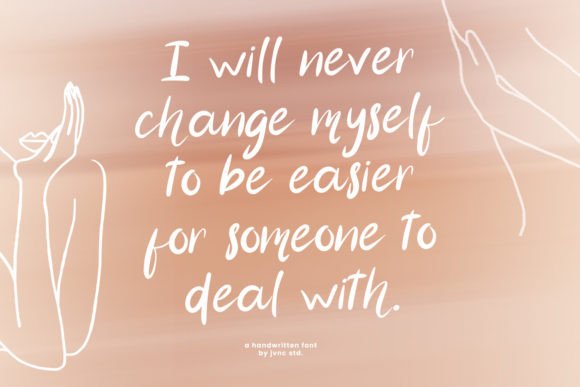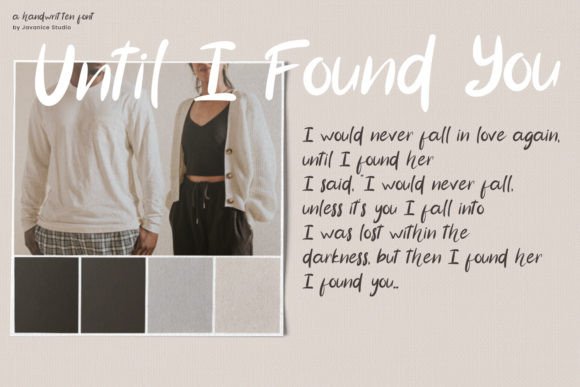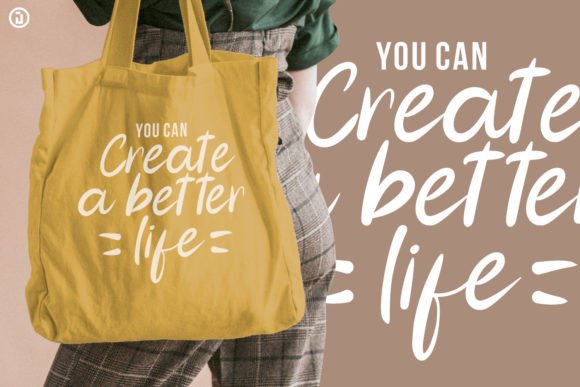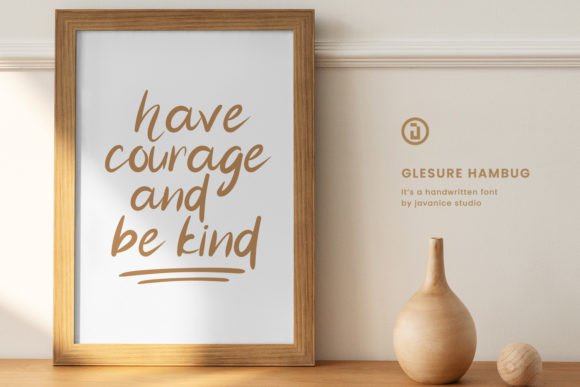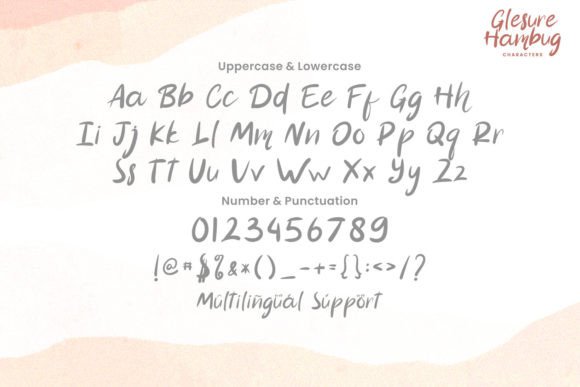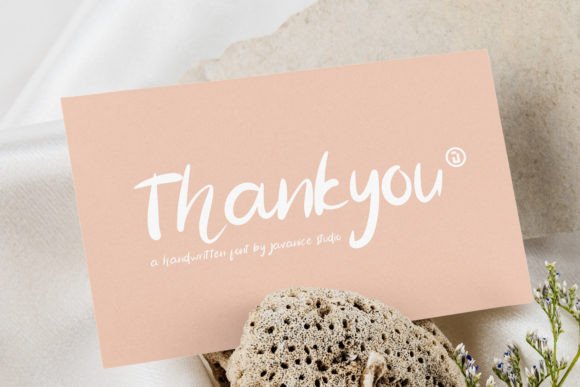
Glesure Hambug Font: Add a Friendly Touch to Your DIY Projects
Are you tired of using the same old fonts for your DIY projects? Look no further! Introducing Glesure Hambug, a beautiful handwritten font designed to add a friendly and lovely touch to your creations. Whether you’re working on a diary planner, journal, or any other project, this font is sure to bring it to life.
What is Glesure Hambug Font?
Glesure Hambug is a unique handwritten font that exudes warmth and friendliness. Its lovely style makes it perfect for a wide range of projects, from personal planners and journals to wedding invitations, party decorations, and more. With Glesure Hambug, you can add a personal touch to your creations that will make them stand out from the rest.
Perfect for Daily Use
One of the best things about Glesure Hambug is its versatility. It’s designed to be used every day, making it perfect for your diary planner or journal. The font’s friendly style will make you feel like you’re writing with a dear friend, making your daily tasks and notes feel more approachable and fun.
Ideal for Special Projects
Glesure Hambug is not just limited to daily use. It’s also ideal for special projects like:
- Back to school projects: Add a playful touch to your child’s school supplies, worksheets, or projects.
- Wedding and party decorations: Use Glesure Hambug to create beautiful wedding invitations, party decorations, and more.
- Festivals and celebrations: Add a festive touch to your posters, blogs, and social media posts.
- Clothing and accessories: Use Glesure Hambug to create custom designs for clothing, bags, and other accessories.
- Child-related designs: Create adorable designs for children’s products, such as baby blocks, nursery decor, and more.
- Greeting cards and social media posts: Add a friendly touch to your greeting cards, social media posts, and other digital communications.
Why Choose Glesure Hambug Font?
So, why should you choose Glesure Hambug font for your projects? Here are just a few reasons:
- Unique and handmade**: Glesure Hambug is a handmade font that adds a personal touch to your projects.
- Easy to read**: The font is designed to be easy to read, making it perfect for body text and headings.
- Versatile**: Glesure Hambug can be used for a wide range of projects, from personal to commercial.
- High-quality**: The font is designed to be high-quality, with clear and crisp lines that will look great in any project.
Tips for Using Glesure Hambug Font
Here are a few tips for using Glesure Hambug font in your projects:
- Pair with other fonts**: Try pairing Glesure Hambug with other fonts to create a unique and interesting look.
- Experiment with colors**: Glesure Hambug looks great in a variety of colors, so don’t be afraid to experiment and find the perfect hue for your project.
- Use it for headings and body text**: Glesure Hambug is easy to read, making it perfect for both headings and body text.
In conclusion, Glesure Hambug font is a beautiful handwritten font that adds a friendly and lovely touch to any project. With its versatile design and high-quality lines, it’s perfect for a wide range of projects, from personal planners and journals to wedding invitations and party decorations. Download Glesure Hambug today and start creating beautiful projects that will stand out from the rest.